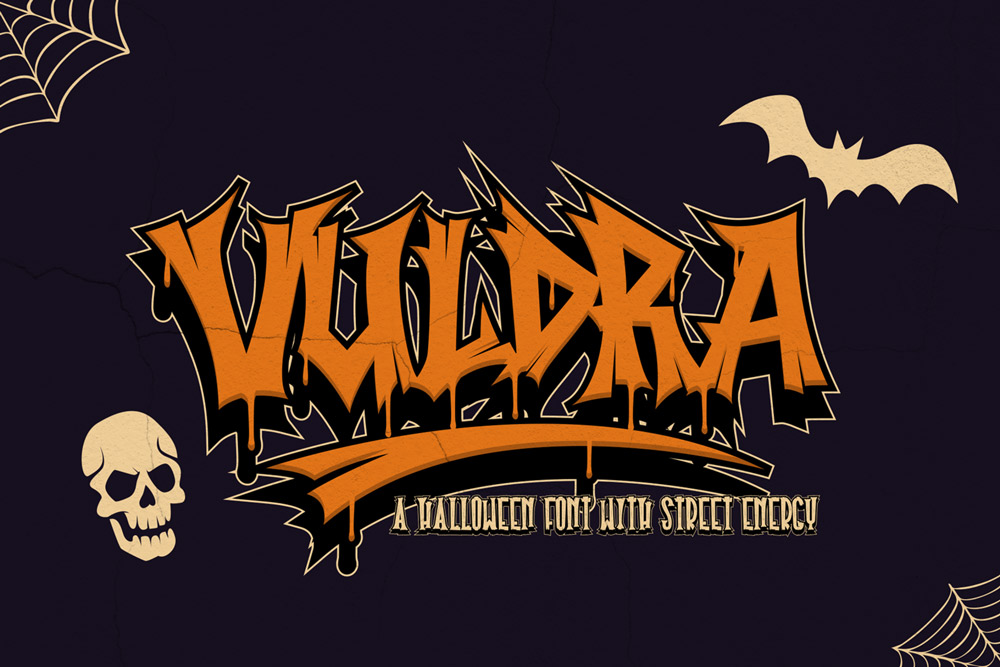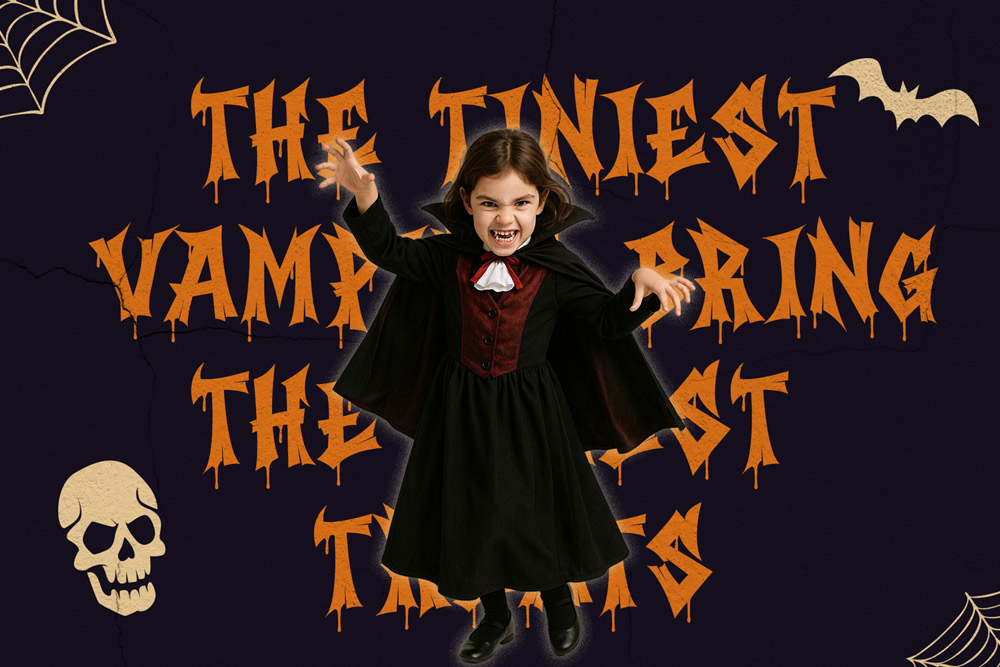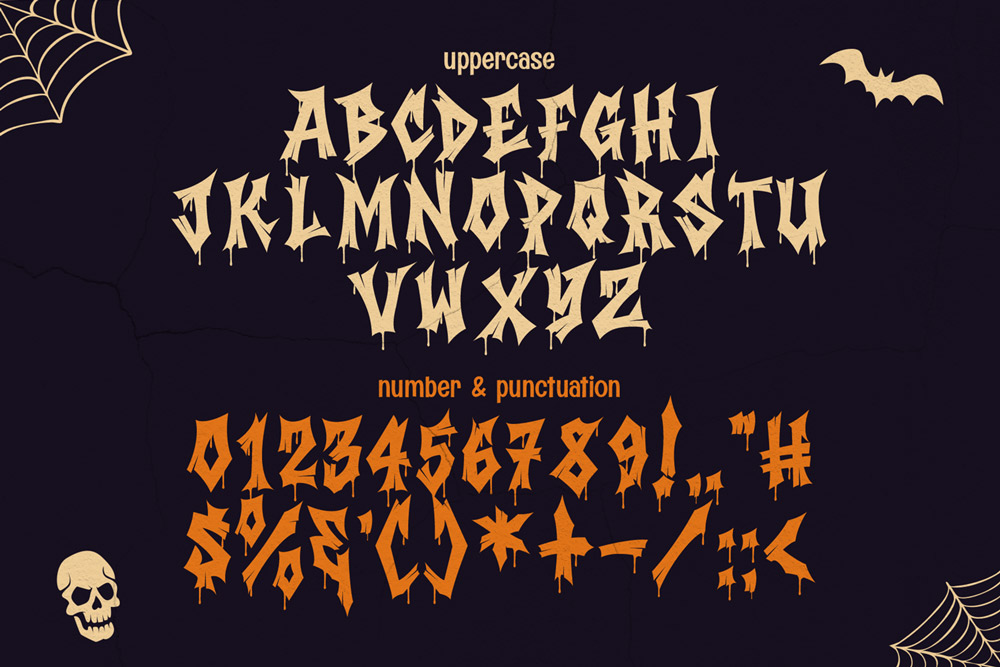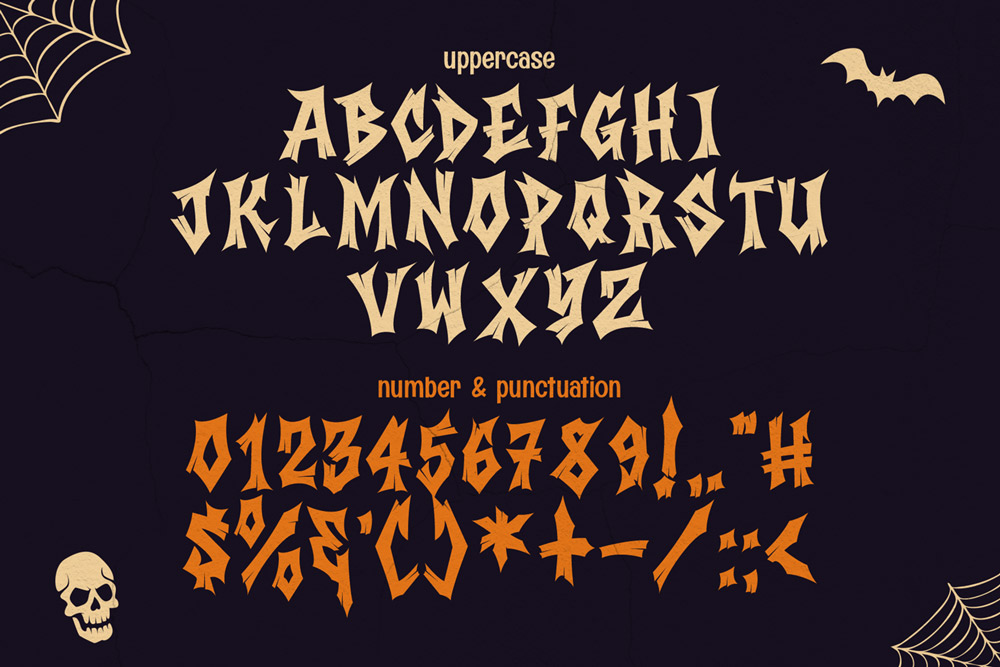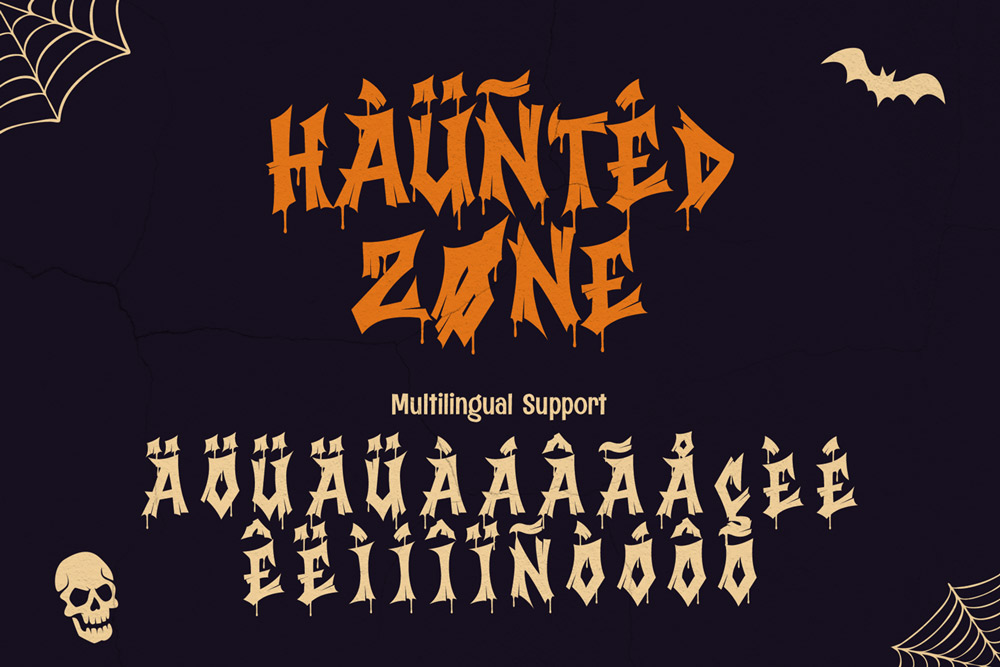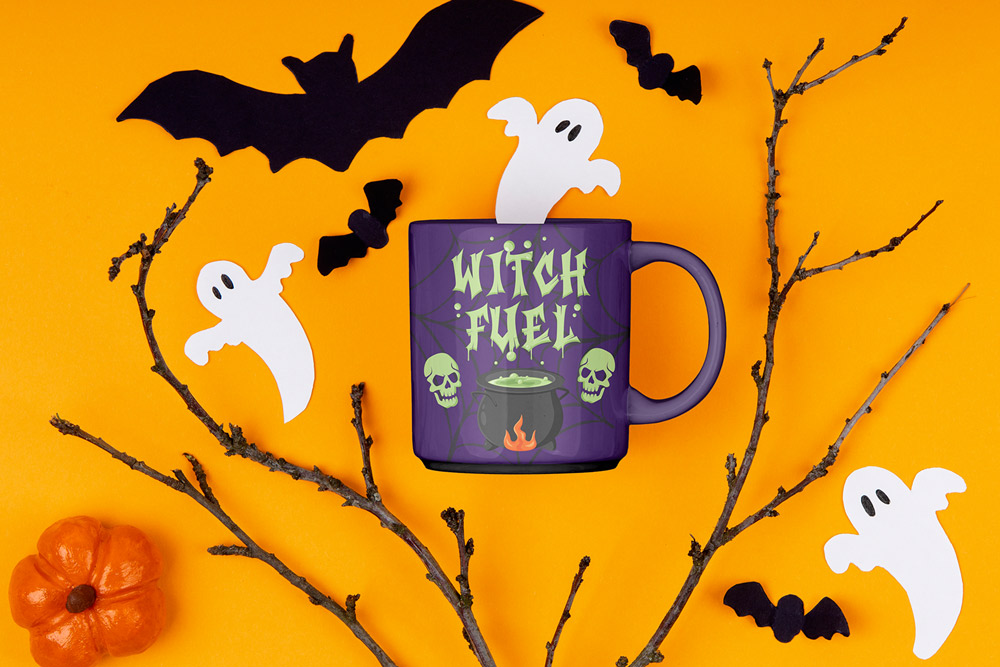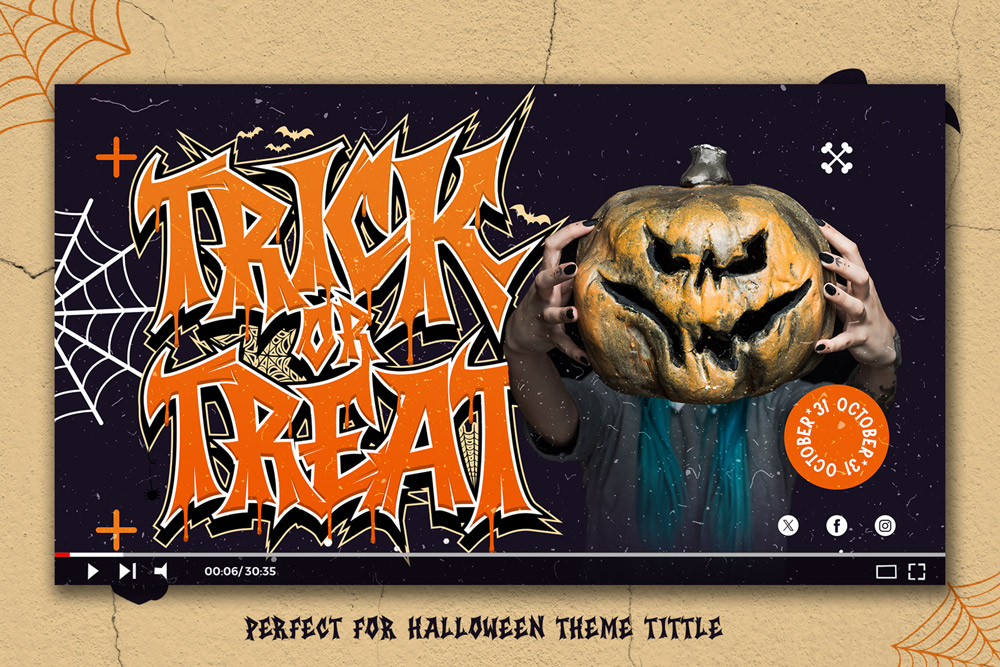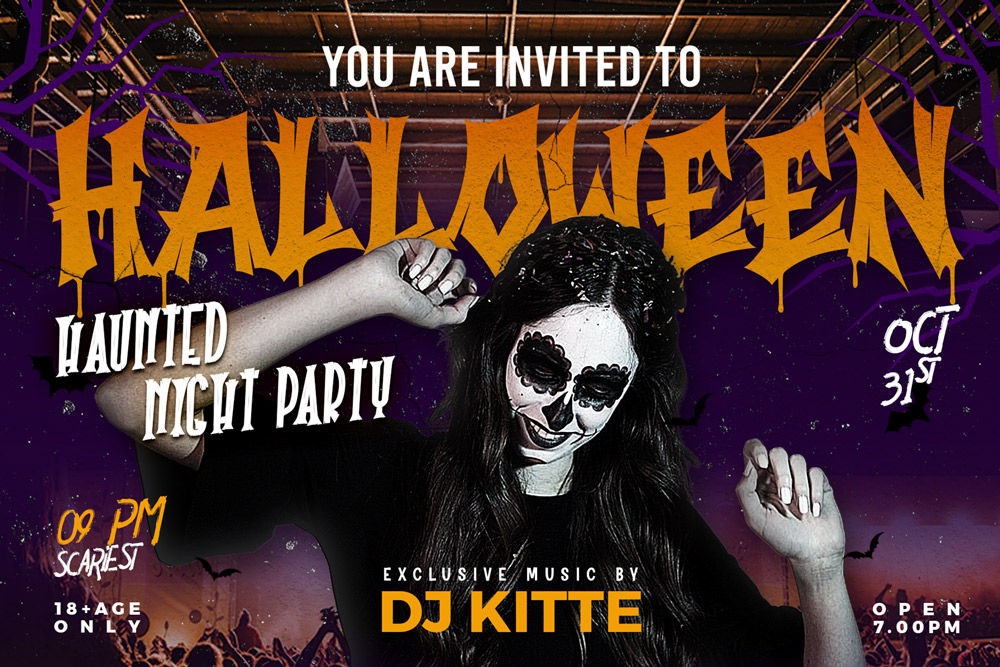
About Vuldra
Unleash Spooky Vibes with Vuldra – A Halloween Font Full of Street Energy and Uppercase Power
Vuldra is a bold Halloween font with street energy that blends creepy, spooky atmospheres with the raw force of urban graffiti culture. Built with uppercase characters, it’s perfect for loud titles, bold headlines, and powerful visual statements. Whether you are creating Halloween posters, horror-themed branding, or edgy street-inspired graphics, Vuldra gives your designs a haunted but stylish personality.
Packed in two unique styles—Clean and Melted—Vuldra adapts to both subtle spooky design and full-on dripping horror energy. Combined with multilingual support, this font is not just seasonal—it’s a global design weapon that thrives in every creative project.
Two Styles for Total Creative Control
Vuldra comes with two powerful styles that let you switch between clean graffiti energy and spooky dripping effects:
-
Vuldra Clean (OTF, TTF, WOFF) – A sharp uppercase design with street-smart edges, great for clean Halloween typography or graffiti-style branding.
-
Vuldra Melted (OTF, TTF, WOFF) – A dripping version with melted textures, perfect for horror posters, haunted events, or streetwear designs with an eerie vibe.
By combining these two versions, you can create layered Halloween effects that balance urban energy with seasonal atmosphere.
Key Features of Vuldra – A Halloween Font with Street Energy
-
Uppercase Characters – Bold capital letters built for attention-grabbing titles.
-
Two Styles Included – Clean and Melted for versatile design options.
-
Multilingual Support – Extended Latin alphabet support for global use.
-
Spooky Meets Street – A rare combination of Halloween horror aesthetics and graffiti energy.
-
Optimized for Web & Print – Works across digital and physical media.
-
Perfect for Seasonal and Urban Projects – Ideal for October campaigns, edgy branding, and creative posters.
Why Designers Love Vuldra
Designers love Vuldra because it brings something different to the table. Most Halloween fonts lean only into spooky horror, while graffiti fonts stay urban and wild. Vuldra fuses both worlds—offering a haunted edge with authentic street style.
The Clean version is excellent for strong graffiti-influenced layouts that still need clarity, while the Melted version brings horror movie vibes to your typography. Together, they allow designers to create unique layouts that don’t just look seasonal, but also stay relevant year-round in streetwear, posters, or underground events.
Its uppercase characters add consistency across designs, while the multilingual support means your Halloween or graffiti projects can travel internationally. As a result, Vuldra is more than just a holiday font—it’s a design tool for multiple occasions.
Perfect Uses for Vuldra
Vuldra is built for designers who want bold, spooky, and urban energy in their projects. Here are just a few ways to use it:
-
Halloween posters, flyers, and haunted house signage
-
Horror movie titles or streaming thumbnails
-
Streetwear branding for edgy seasonal drops
-
Skateboarding, BMX, and extreme sports designs
-
Underground event flyers and party promotions
-
Digital content like YouTube intros and gaming overlays
-
Merchandise including t-shirts, hoodies, and stickers
-
Social media campaigns for October and beyond
Global Reach with Multilingual Support
Halloween and street art are global, and Vuldra supports multiple languages through extended Latin alphabets. That means you can design for audiences in English, French, German, Spanish, Italian, and many other languages without losing authenticity.
No matter where your audience is located, Vuldra keeps your typography consistent, spooky, and stylish.
Why Vuldra Belongs in Your Font Collection
-
Unique Fusion – Combines Halloween horror vibes with graffiti street energy.
-
Design Flexibility – Two included styles cover clean and dripping looks.
Typography has the power to scare, impress, and dominate—and Vuldra delivers it all. Its uppercase characters scream authority, its melted style drips with Halloween energy, and its clean version brings modern street precision.
If you’re building a Halloween campaign, promoting a music event, or creating urban streetwear, Vuldra helps your designs stand out. Turn every word into a haunted mural of style—because Vuldra is not just a font, it’s a Halloween street experience.